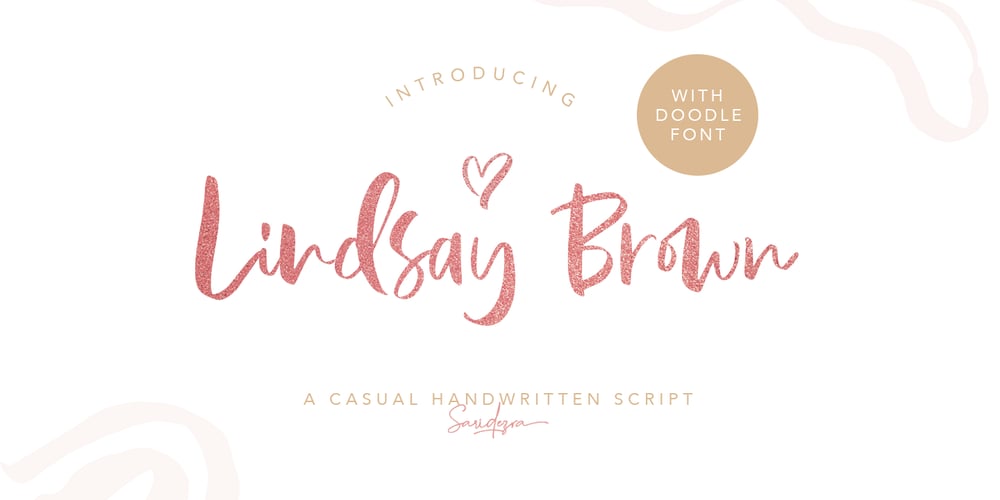
Lindsay Brown
Lindsay Brown font
Lindsay Brown Font Family was designed by Sarid Ezra and published by Sarid Ezra. Lindsay Brown contains 3 styles and family package options. Lindsay Brown Script is a script that contain lowercase, uppercase, symbol, and also support multi language. This font also contain an alternates in each characters. There’s a lot ligatures in this font. Lindsay Brown Script is a font that you can use to make a logo for branding, beautiful fashion design, suitable for wedding invitation, or handwritten quote. Not only that, this font also contain EXTRA DOODLE in font!For another questions, please send a mail to saridezra@gmail.com. Thank You!